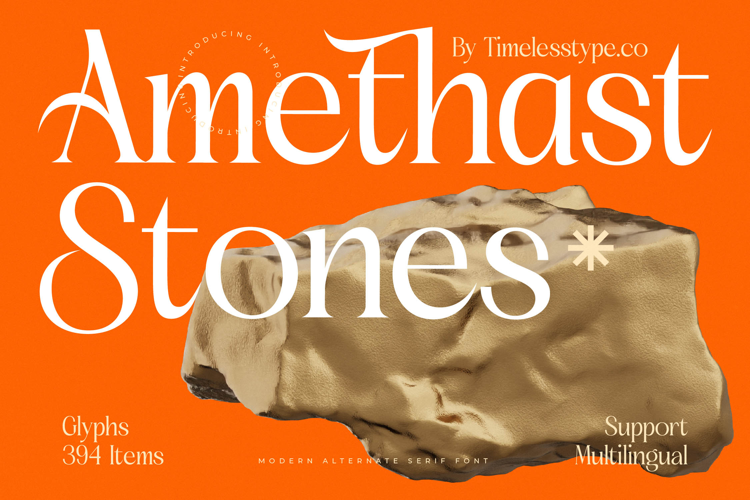
Amethast Stones - Modern Alternate Serif Font
Demand attention with timeless elegance and modern flair. Introducing the exquisite Amethast Stones - Modern Alternate Serif Font, a typeface meticulously designed to convey instant luxury and sophisticated charm. This font masterfully blends classic high-contrast serif geometry with dramatic, sweeping alternate characters and stunning discretionary ligatures, offering an unparalleled aesthetic signature built for distinction. Its sharp terminals and smooth curves create a captivating rhythm perfect for headline usage.
Unlock your full creative potential with deep customization. Featuring nearly 400 unique glyph items, Amethast Stones - Modern Alternate Serif Font is an opulent toolbox for professional designers. The abundance of stylistic alternates, dazzling swashes, and custom ligatures ensures vast typographical control, making it ideal for crafting impactful, unforgettable display compositions that cut through the noise in any market. This high level of customization empowers your branding narratives.
Achieve professional results on an international scale. With its extensive multilingual support, Amethast Stones - Modern Alternate Serif Font adapts seamlessly across global markets, making it incredibly versatile for international projects. This robust language compatibility ensures that your brand’s voice maintains its high-contrast elegance and absolute clarity, regardless of the linguistic requirements of the material.
The definitive choice for elevated visual identity. Amethast Stones - Modern Alternate Serif Font is perfectly suited for projects demanding a touch of refined drama and prestige. It is the premier choice for luxury branding, high-end fashion advertisements, sophisticated editorial layouts, bespoke packaging design, and exclusive invitations. Utilize this modern serif font to establish an undeniably premium visual identity for your most discerning clients.